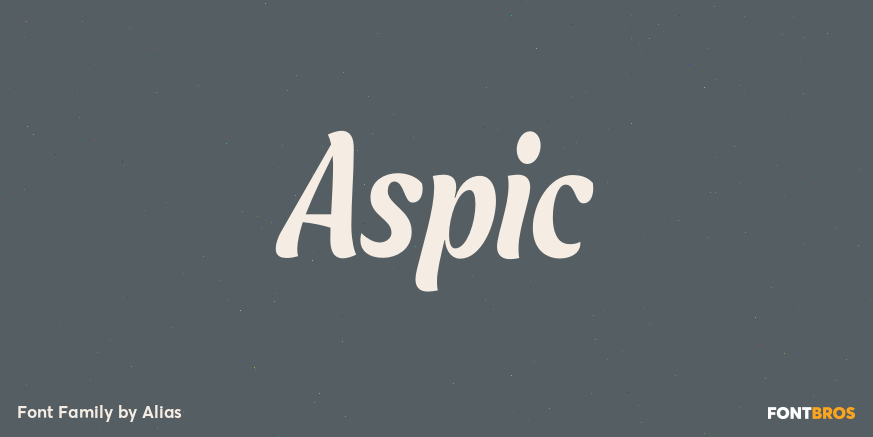
Aspic
About Aspic
One of three typefaces drawn from a mix of influences including signwriting, the brush-style typography of cereal packets or toilet rolls, the calligraphy of Berthold Wolpe. All have an emphasis on an expressive digitally-derived interpretation of hand…